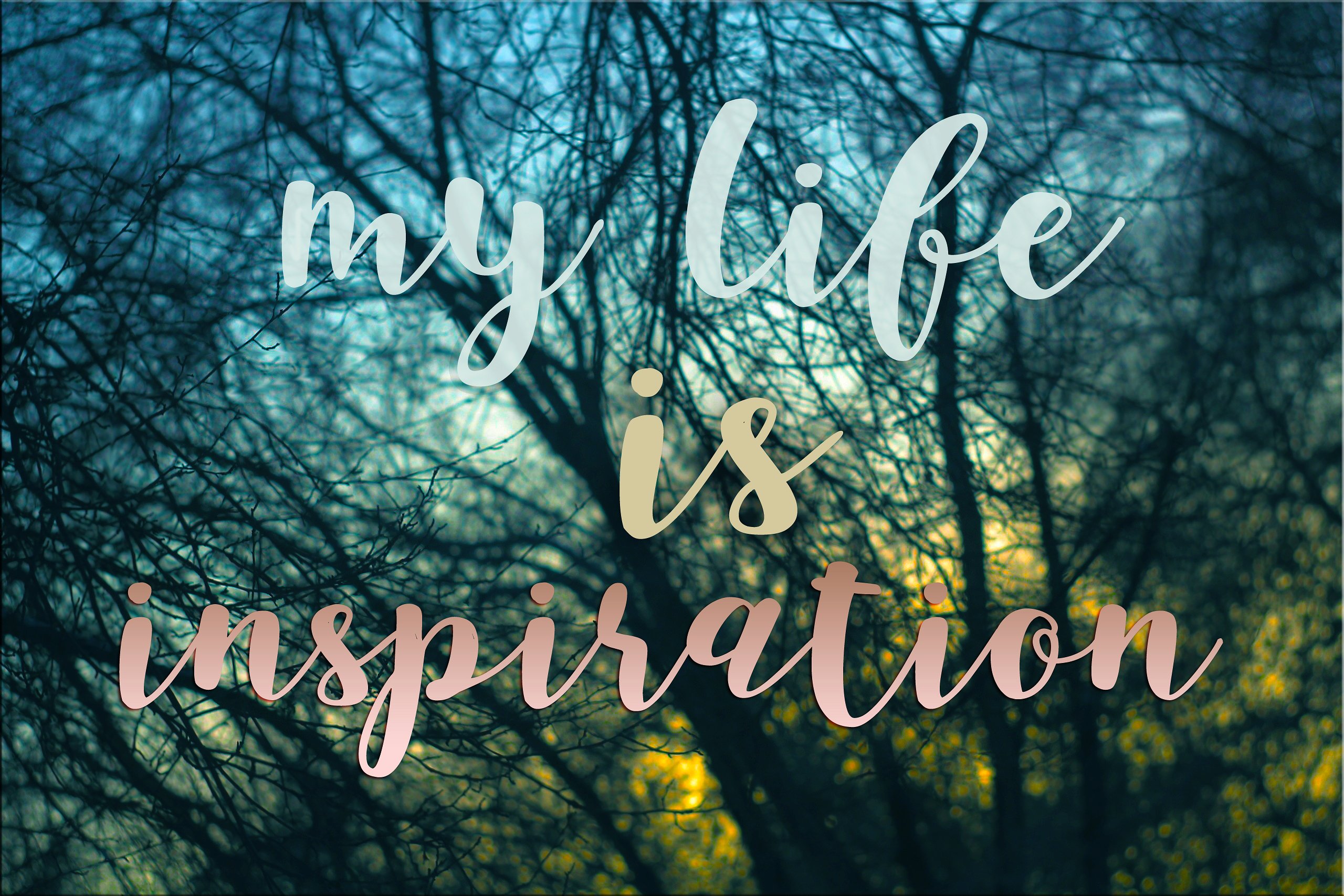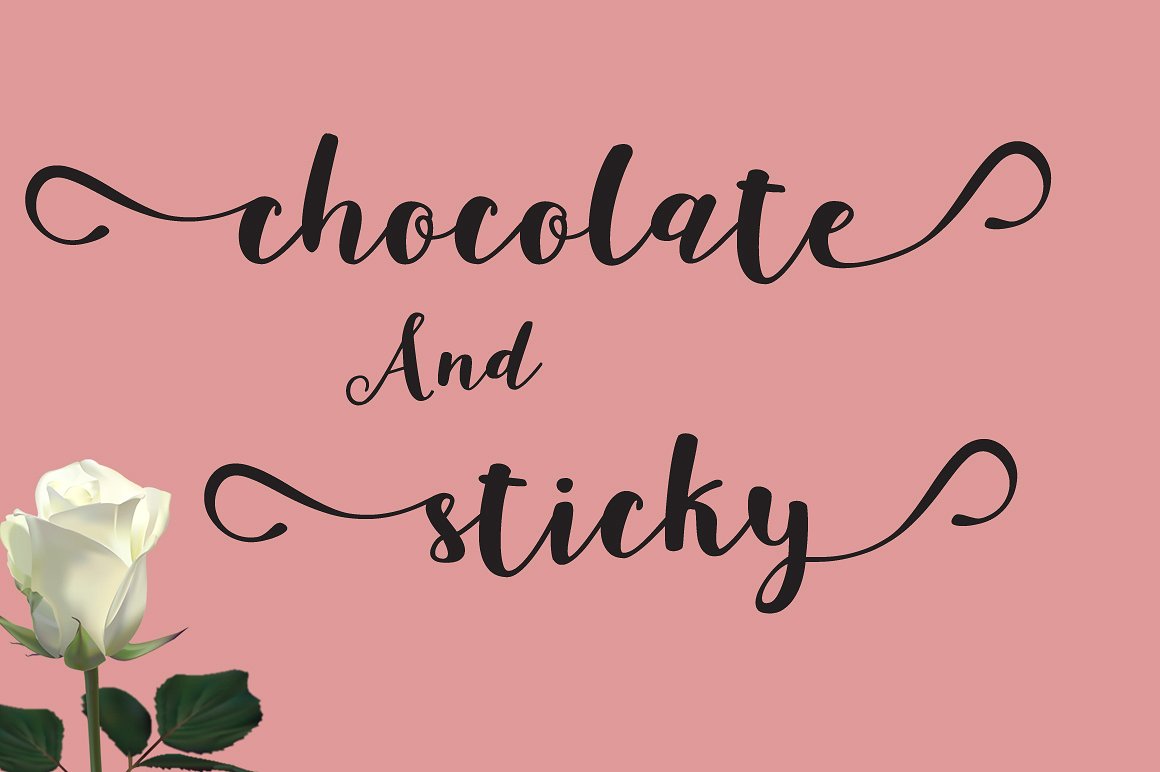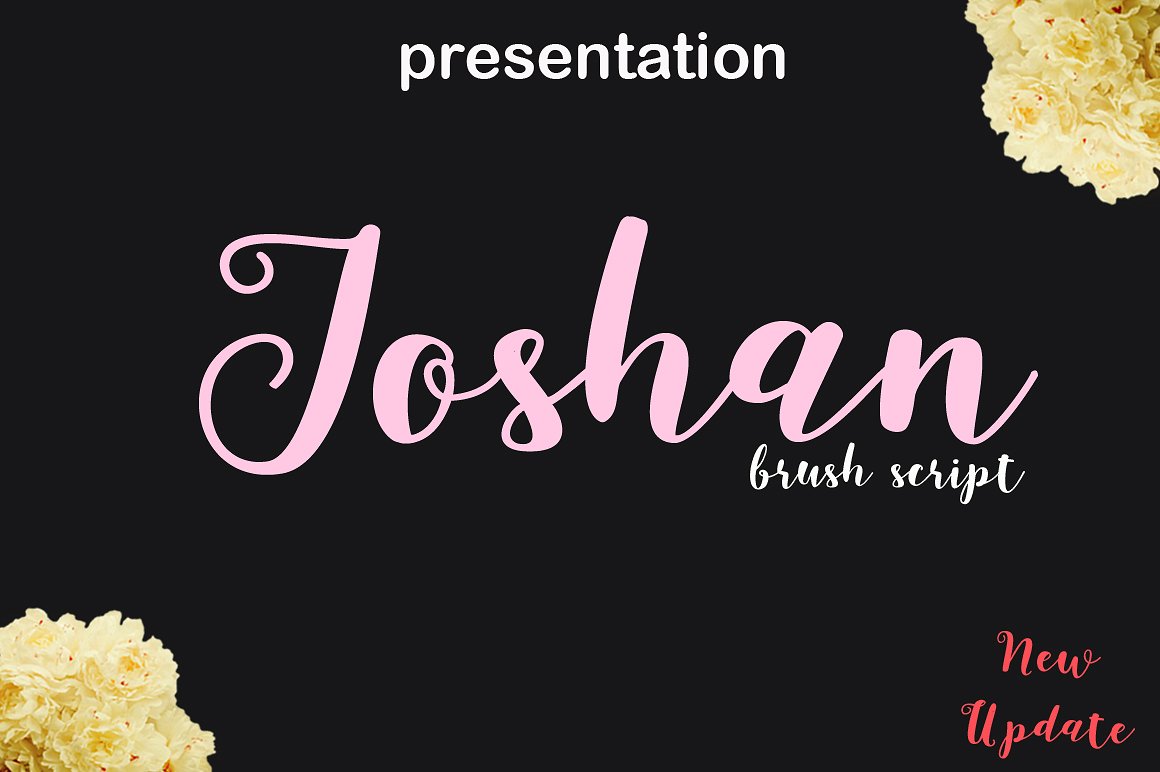
Joshan Brush
Joshan Brush Font
Introducing : Joshan Brush Script. Hand painted manuscripts inspired by the typeface typography viscous and hand letter. Combine with street art, graffiti, grunge, europe thick shades. Ideal for; Logo, design clothes, invitations, brochures, posters, greeting cards, product packaging, header, printed excerpts, album cover, etc.